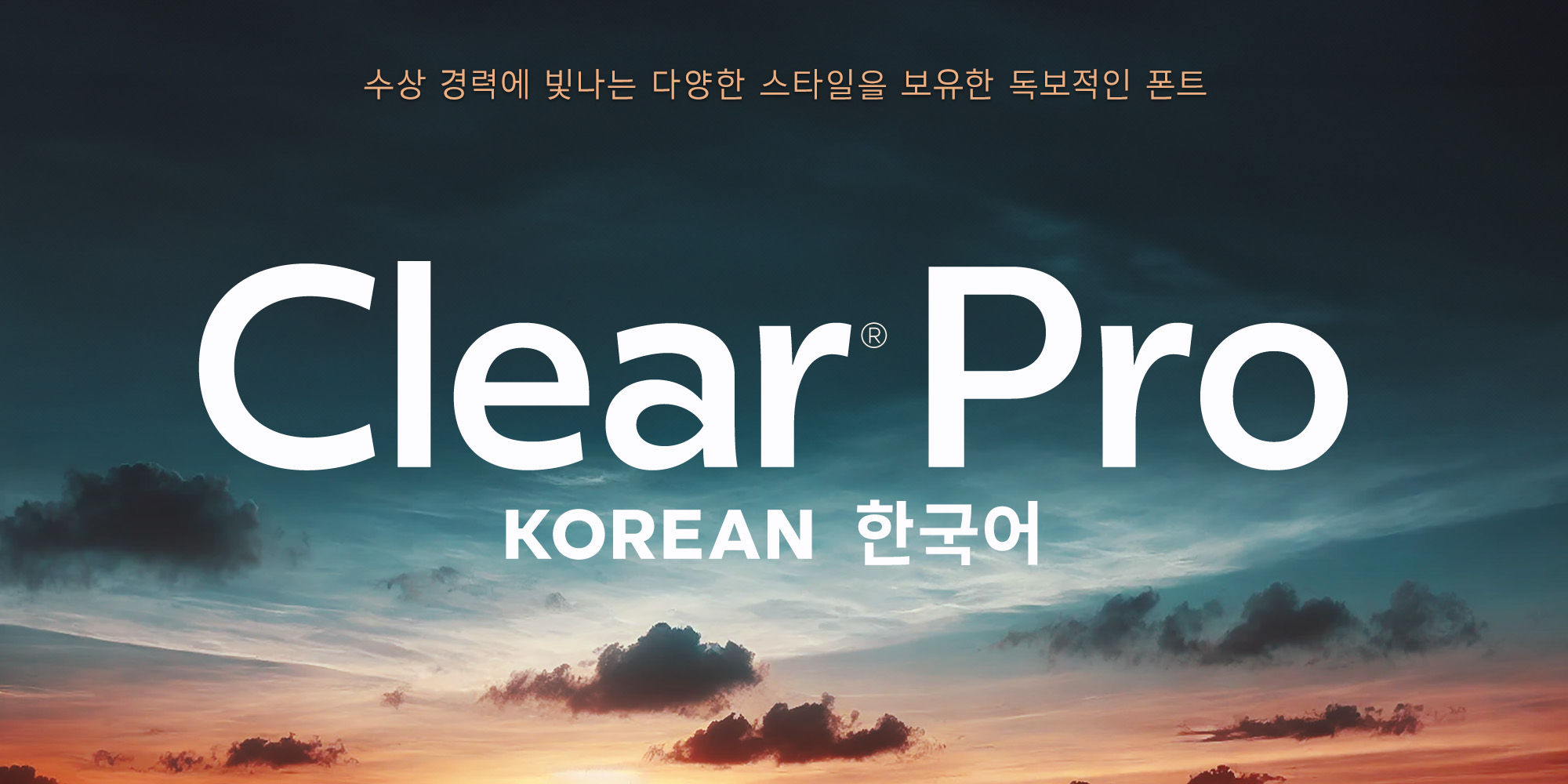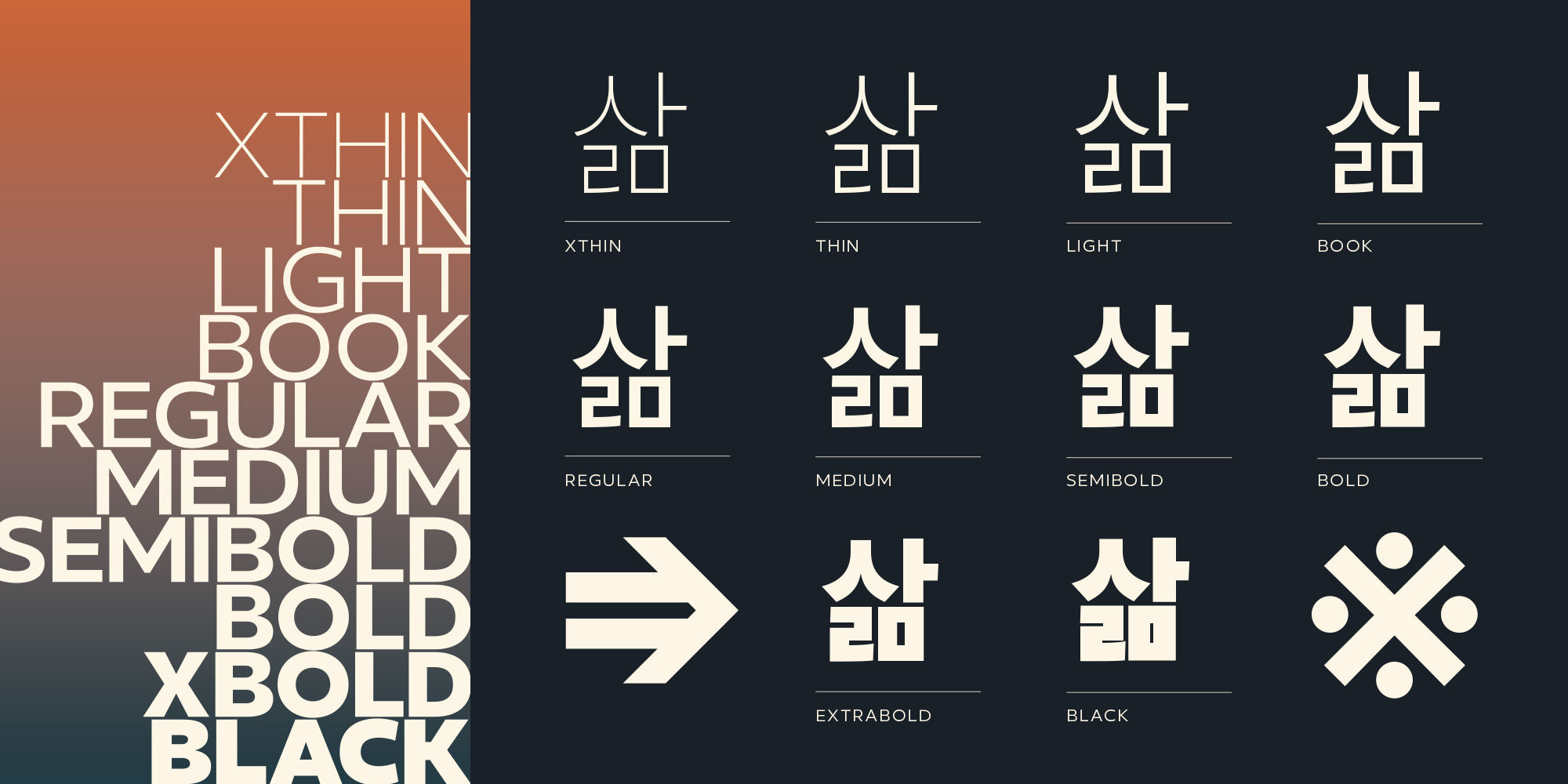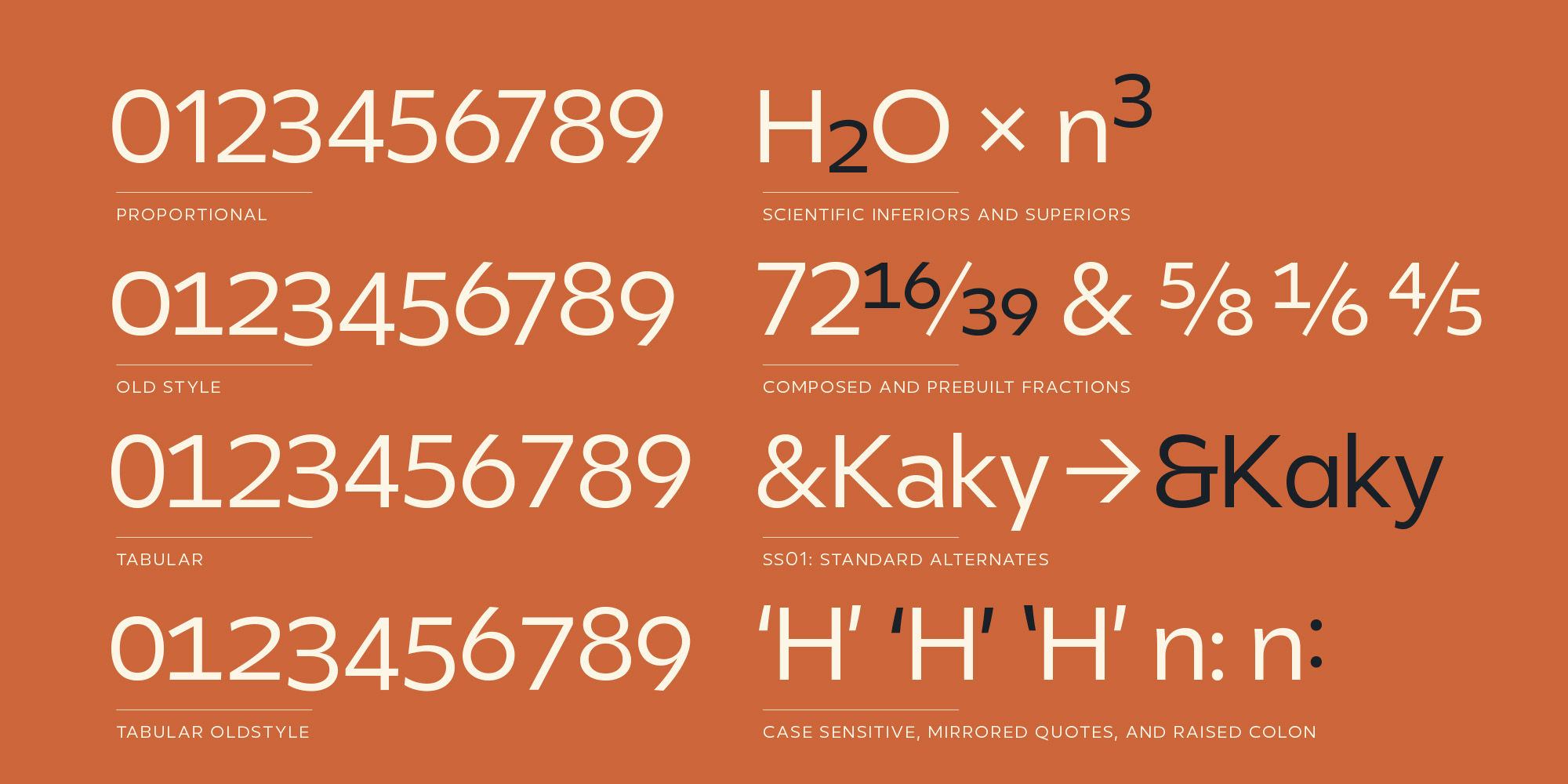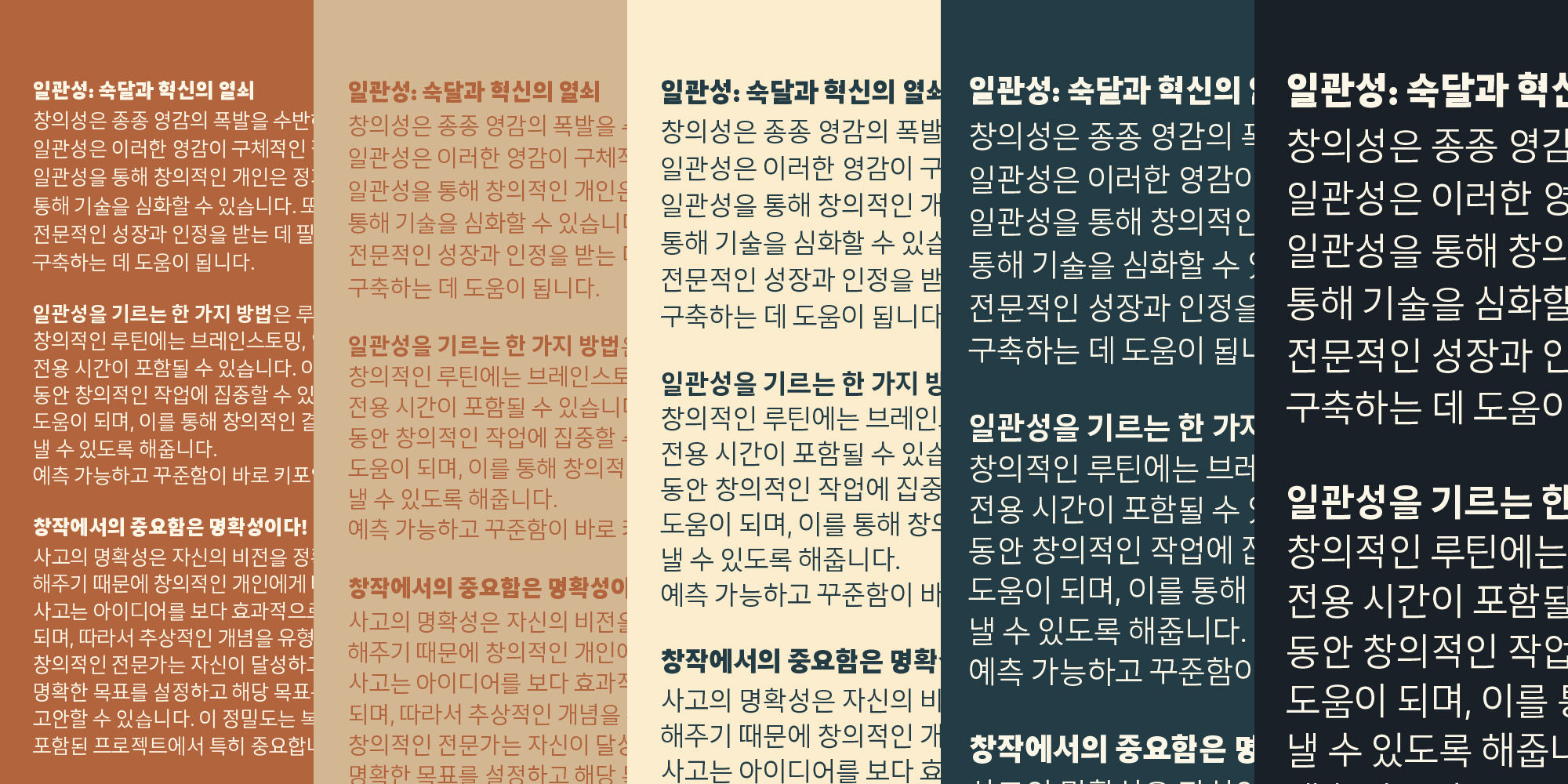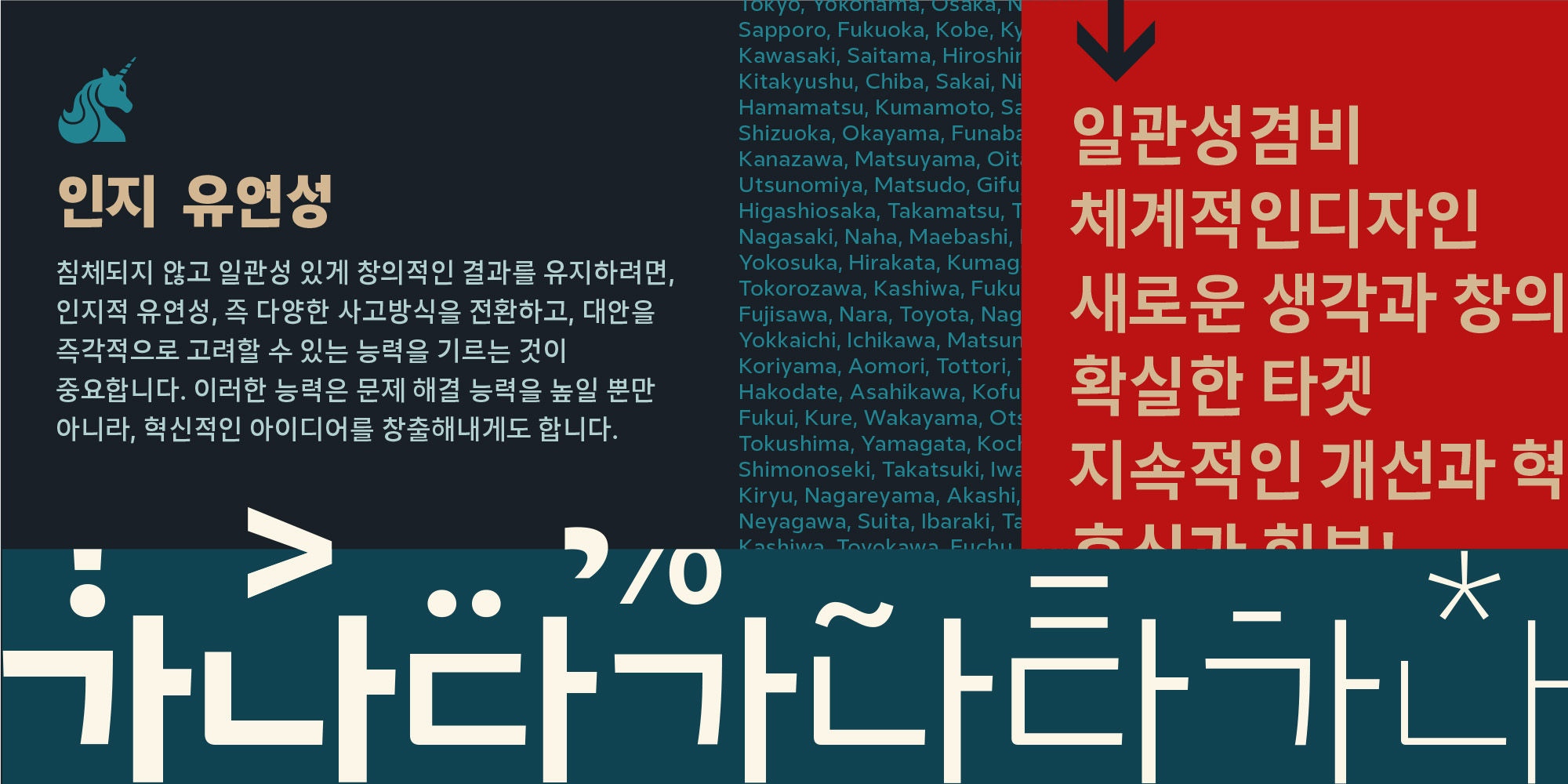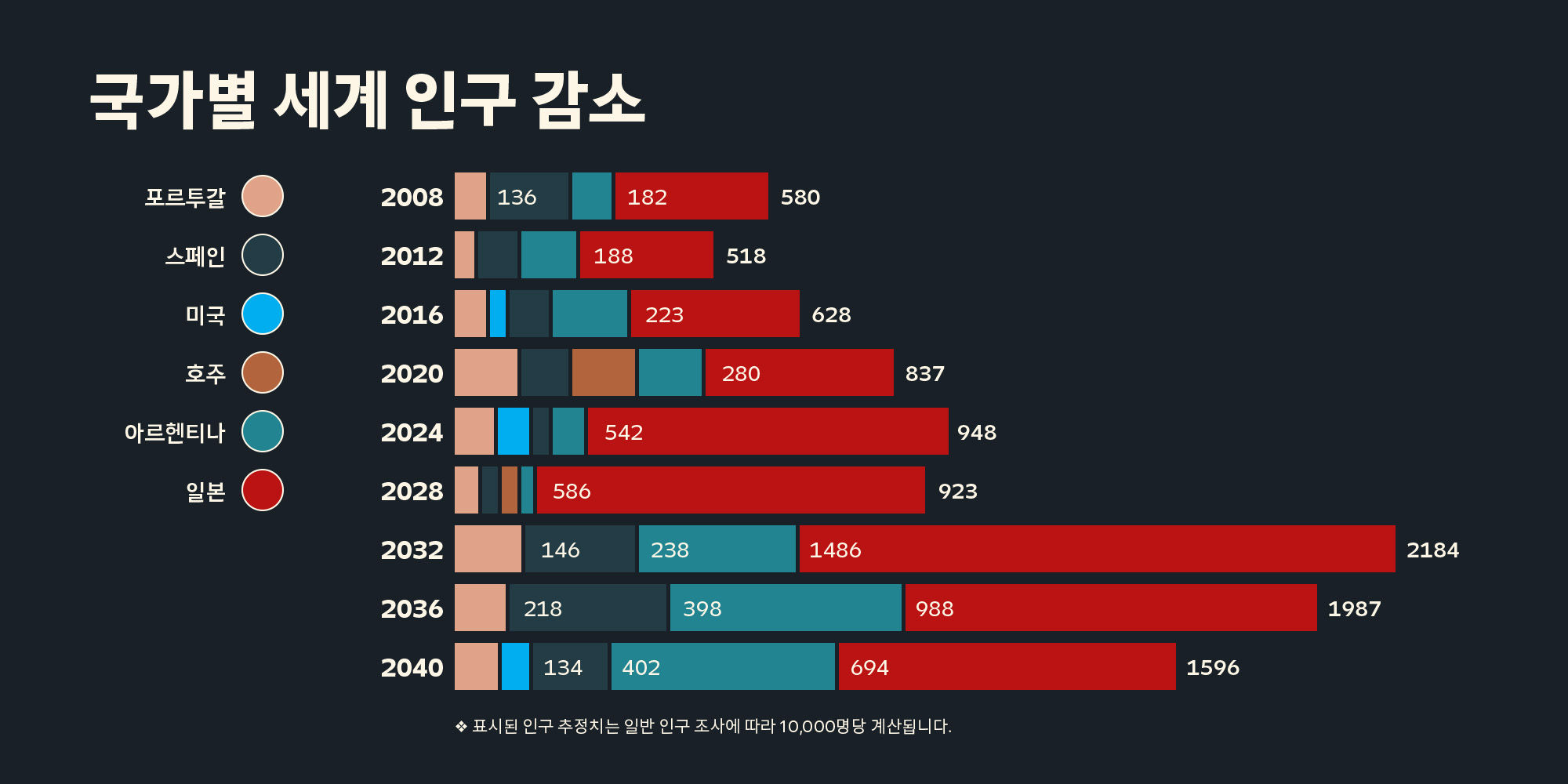
Clear 한국어
Standard Ligaturesliga
Small Capssmcp
Fractionsfrac
Superscriptsups
Scientific Inferiorssinf
Ordinalsordn
Case-Sensitive Formscase
Oldstyle Numeralsonum
Tabular Numeralstnum
Stylistic Set 1ss01
Winner of the 2024 Communication Arts Award of Excellence. Clear Sans™ Pro is a rational geometric sans serif designed to provide an alternative to vernacular and geometric typefaces. Originally hand-painted in 2008, it was completed for a friend's identity and later expanded. Inspired by the bold, straightforward lettering of early 20th-century signage, Clear Sans™ Pro combines precision with warmth. It offers a comprehensive range of weights, widths, italics, and an extensive character set, making it both familiar and versatile. Clear Sans™ Pro balances assertiveness and friendliness, bringing a sophisticated yet approachable tone to any design.
Clear Sans™ Pro has been further expanded to support a variety of scripts, including Arabic, Cyrillic, Greek, Japanese, Khmer, Korean, Lao, and Thai. This extensive script coverage ensures Clear Sans™ Pro maintains its versatility and accessibility across different languages and cultural contexts, making it an ideal choice for global brands and multilingual projects.